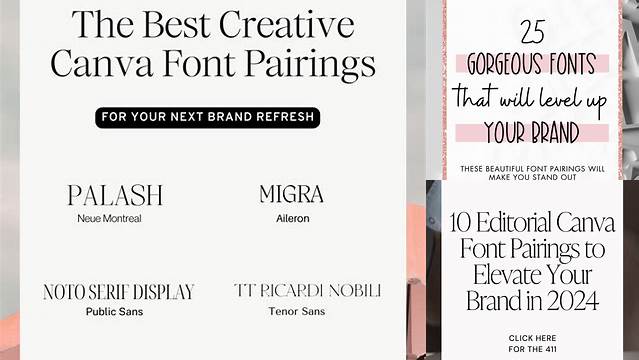
Font Combinations: Expert Guide To Perfect Pairings
Font combinations play a crucial role in visual communication, and they can significantly impact the effectiveness of your designs. Whether you're crafting a website, designing a logo, or creating marketing materials, the fonts you choose can convey your message, establish a brand identity, and influence how your audience perceives your work. This article will delve into the world of font pairings, offering guidance on how to select complementary fonts and create harmonious designs. We'll cover various aspects of font pairing, from understanding font families to exploring specific combinations for different purposes. Let's dive in and discover the secrets to effective font combinations that will help elevate your designs to the next level.
Understanding Font Families
Before diving into specific font combinations, it's essential to understand the different font families. Font families group typefaces that share common characteristics, such as their overall style, structure, and historical origins. There are four primary font families: serif, sans-serif, monospace, and script. Each family has unique characteristics that make it suitable for various design applications. By understanding these differences, you can choose fonts that work well together and enhance the readability and aesthetic appeal of your designs.
Serif fonts are characterized by small strokes, or serifs, at the end of the letterforms. These serifs can be delicate, bold, or slab-like. Serif fonts often evoke a sense of tradition, elegance, and formality. They are commonly used for body text in print publications because the serifs help guide the reader's eye across the page, improving readability. Common examples of serif fonts include Times New Roman, Garamond, and Georgia. When using serif fonts, consider pairing them with a sans-serif font for headings and subheadings to create visual contrast. For instance, a classic pairing could be Garamond for body text and Open Sans for headings.
Sans-serif fonts, as the name suggests, lack the serifs found in serif fonts. These fonts typically have a cleaner, more modern appearance. Sans-serif fonts are known for their simplicity and legibility, especially on screens. They are widely used for digital content, including websites, apps, and online marketing materials. They often convey a sense of modernity, simplicity, and informality. Popular sans-serif fonts include Helvetica, Arial, and Open Sans. Pairing sans-serif fonts with other sans-serif fonts can create a clean, contemporary look. However, mixing sans-serif with serif fonts offers a good balance. A popular combination is using Arial for headings and a serif font like Times New Roman for the body text.
Monospace fonts assign the same amount of horizontal space to each character. This consistency makes them suitable for displaying code, data, and technical information. They often have a retro, technological feel. Monospace fonts are less common in general design but are essential for specific purposes. Examples of monospace fonts are Courier New and Monaco. Because of their unique style, monospace fonts are usually best used in a limited capacity alongside other fonts.
Script fonts mimic handwriting, offering a calligraphic or handwritten appearance. They can range from formal and elegant to casual and playful. Script fonts are ideal for adding a personal touch to your designs, such as in invitations, logos, or titles. However, they can be difficult to read in large blocks of text, so they should be used sparingly. Examples of script fonts include Brush Script MT and Lobster. Due to their ornate nature, script fonts work best when paired with simple, clean fonts like a sans-serif font to balance the design. A common combination is using a script font for a logo and a sans-serif font for body text and headings.
By understanding these font families, you can make informed decisions when selecting fonts for your projects, ensuring that they complement each other and align with your design goals.
Creating Effective Font Pairings: A Step-by-Step Guide
Choosing the right font pairings can seem daunting, but it can be simplified with a systematic approach. Here's a step-by-step guide to help you create effective font combinations that enhance the visual appeal and readability of your designs. This guide will help you master the art of typography and create designs that resonate with your audience.
1. Define Your Design Goals: Before you start selecting fonts, clearly define the purpose of your design project. Consider your target audience, the message you want to convey, and the overall tone or mood you wish to create. Are you designing a website for a tech startup, creating a logo for a fashion brand, or developing marketing materials for a non-profit? Each scenario will have different typographic needs. This will guide your font selection process. Understanding your project's objectives is the cornerstone of a successful design.
2. Choose a Primary Font: Select your primary font first. This font will be used for the most prominent text elements, such as headings, titles, and main headings. The primary font should reflect your brand's personality and communicate the core message of your design. Consider readability, especially if the font will be used for a lot of text. If your design is intended for a website, ensure the font is web-safe and renders well on different devices. A good primary font should be versatile and adaptable to various uses within your project.
3. Select a Complementary Font: Once you have chosen your primary font, it's time to find a complementary font. This font will be used for other text elements, such as subheadings, body text, and captions. The complementary font should contrast with the primary font while still harmonizing with it. This contrast will create visual interest and improve readability. There are several methods for pairing fonts: contrast in style (serif vs. sans-serif), contrast in weight (bold vs. light), or even contrast in size. When selecting a complementary font, consider its visual compatibility with the primary font. It should not clash but enhance the overall design.